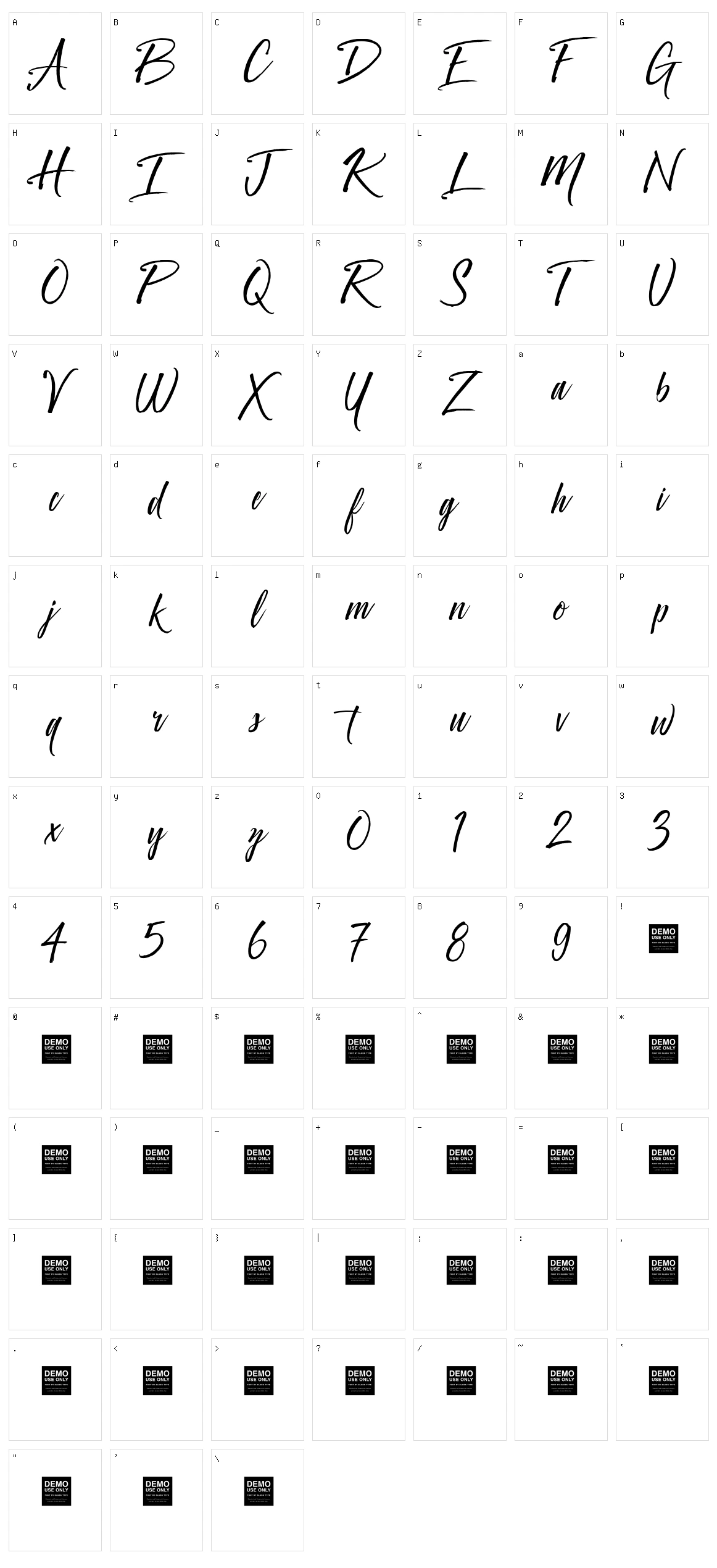
The free font Crown Heights is carefully designed by BLKBK Fonts, showcasing a thoughtful balance of creativity and usability and falls under the Script font style. When you download the ZIP file, it contains only 61.27 KB of font files, making it lightweight and quick to download. Please review the license details below to understand permitted usage and distribution rights. If license information is not available, we recommend using this font for personal projects only or contacting the author directly for commercial usage permissions.